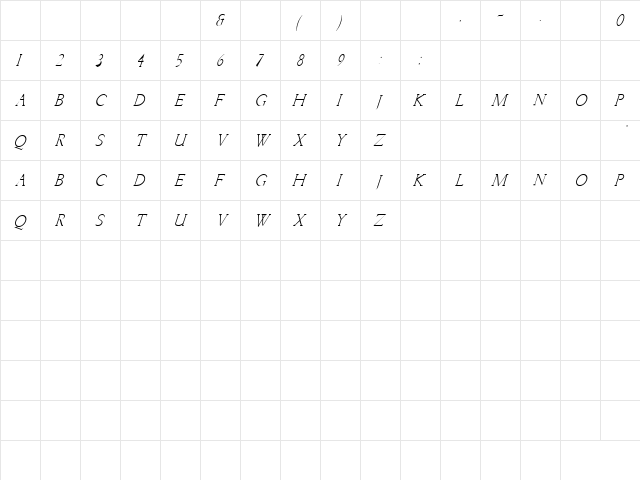
Kellnear-Italic Normal
Design Context for Kellnear-Italic Typeface
Kellnear-Italic takes a measured approach to typography — its balanced proportions and neutral character make it a reliable workhorse for both digital and print work. The slanted form adds forward momentum and visual energy.
Pro Tip: Use Kellnear-Italic for emphasis, pull quotes, and subheadings where its slanted energy can add rhythm to the layout.